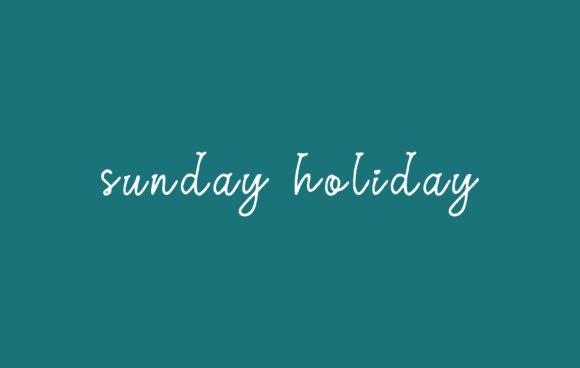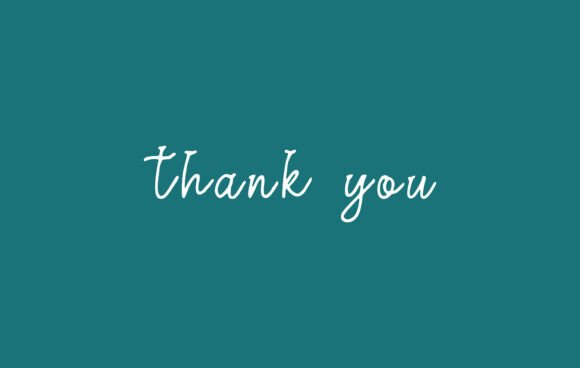
Introducing Adorn Copperplate Font: The Ultimate Romantic Handwritten Font
Are you tired of using the same old fonts for your creative projects? Do you want to add a touch of elegance and romance to your designs? Look no further than Adorn Copperplate Font, an authentic handwritten font that is sure to take your work to the next level. In this article, we’ll dive into the features and benefits of Adorn Copperplate Font, and explore how it can be used to elevate your designs.
What is Adorn Copperplate Font?
Adorn Copperplate Font is a beautifully crafted handwritten font that exudes a romantic touch. Expertly designed to be a true favorite among designers and crafters, this font has the potential to transform your creative ideas into stunning visual realities. With its elegant and flowing lines, Adorn Copperplate Font is the perfect choice for anyone looking to add a touch of sophistication to their designs.
Key Features of Adorn Copperplate Font
So, what makes Adorn Copperplate Font so special? Here are just a few of its key features:
• Authentic Handwritten Style: Adorn Copperplate Font is a genuine handwritten font, giving it a unique and personal touch that sets it apart from more traditional fonts.
• Romantic Touch: With its flowing lines and elegant curves, Adorn Copperplate Font is the perfect choice for designers looking to add a touch of romance to their work.
• High Legibility: Despite its ornate appearance, Adorn Copperplate Font is highly legible, making it perfect for use as both title and body text.
• Versatility: Adorn Copperplate Font is incredibly versatile, and can be used for a wide range of design projects, from magazine headlines and social media graphics to branding, wedding invitations, and more.
Uses for Adorn Copperplate Font
So, how can you use Adorn Copperplate Font in your designs? The possibilities are endless! Here are just a few ideas to get you started:
• Magazine Headlines: Add a touch of elegance to your magazine headlines with Adorn Copperplate Font.
• Social Media Graphics: Use Adorn Copperplate Font to create eye-catching social media graphics that will help your brand stand out.
• Branding: Establish your brand’s identity with Adorn Copperplate Font, perfect for use on business cards, letterheads, and more.
• Wedding Invitations: Make your wedding invitations truly special with Adorn Copperplate Font, adding a touch of romance and elegance to your big day.
• Cards and Stationery: Use Adorn Copperplate Font to create beautiful cards and stationery that will make your loved ones feel special.
Why Choose Adorn Copperplate Font?
With so many fonts to choose from, why should you choose Adorn Copperplate Font? Here are just a few reasons why:
• Unique and Authentic: Adorn Copperplate Font is a truly unique and authentic handwritten font, giving your designs a personal touch.
• Elegant and Romantic: With its flowing lines and elegant curves, Adorn Copperplate Font adds a touch of romance and sophistication to any design.
• Highly Legible: Adorn Copperplate Font is highly legible, making it perfect for use as both title and body text.
• Versatile: Adorn Copperplate Font can be used for a wide range of design projects, making it a great addition to any designer’s toolkit.
In conclusion, Adorn Copperplate Font is a beautiful and authentic handwritten font that is sure to take your designs to the next level. With its elegant and romantic style, high legibility, and versatility, Adorn Copperplate Font is the perfect choice for designers and crafters looking to add a touch of sophistication to their work. Whether you’re creating magazine headlines, social media graphics, branding, wedding invitations, or cards, Adorn Copperplate Font is the perfect choice. So why wait? Download Adorn Copperplate Font today and start creating stunning designs that will leave a lasting impression!